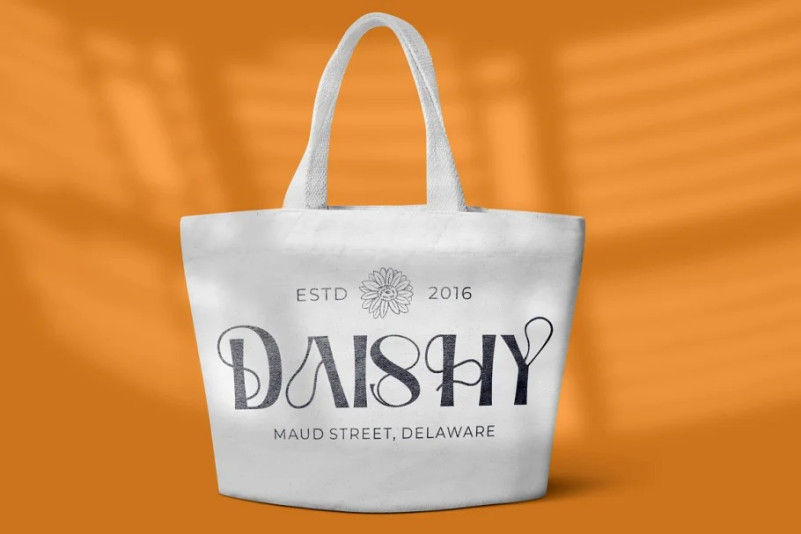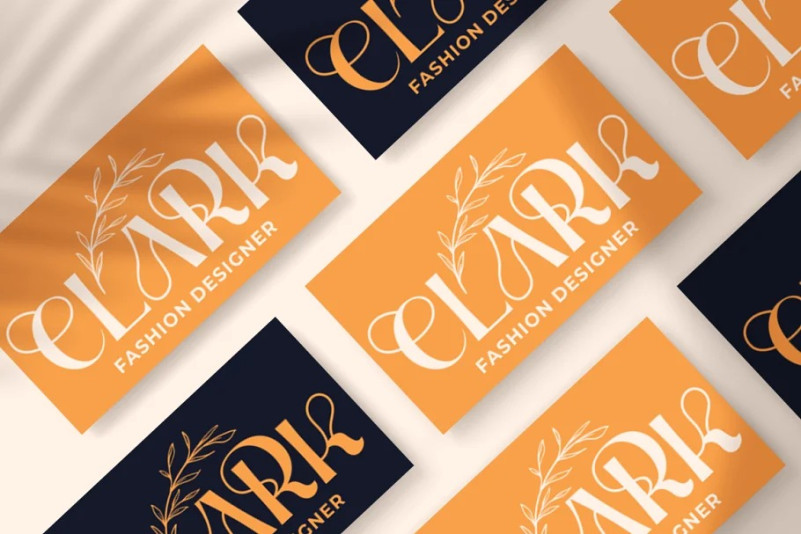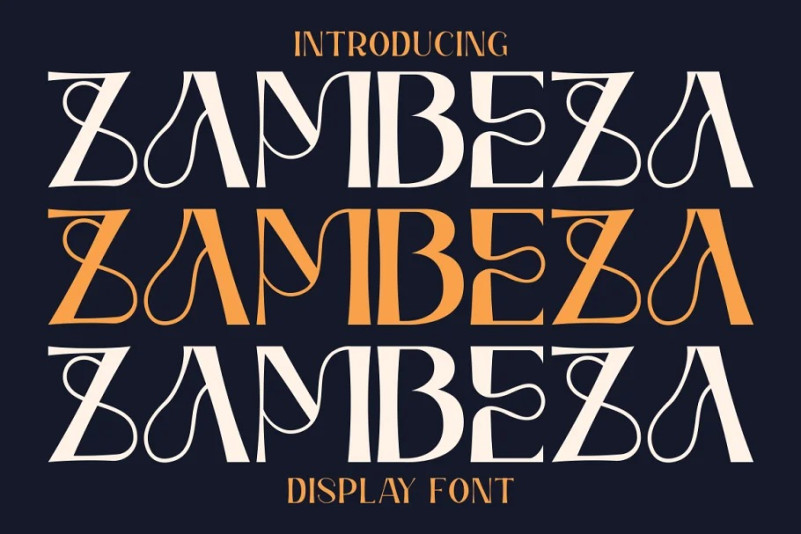
Zambeza Font
Introducing a new modern display font called “ Zambeza “. Inspired from modern typography and lettering in the vintage poster and we combine with elegant typography style. With Zambeza, you can make letter combinations for lettering with a lot of options. Come with open type feature ( a lot of alternates and end swash), its help you to make great lettering.
Zambeza best uses for Logotype, heading,cover, poster, logos, quotes, product packaging, header, merchandise, social media & greeting cards and many more. Zambeza font is also support multi language.